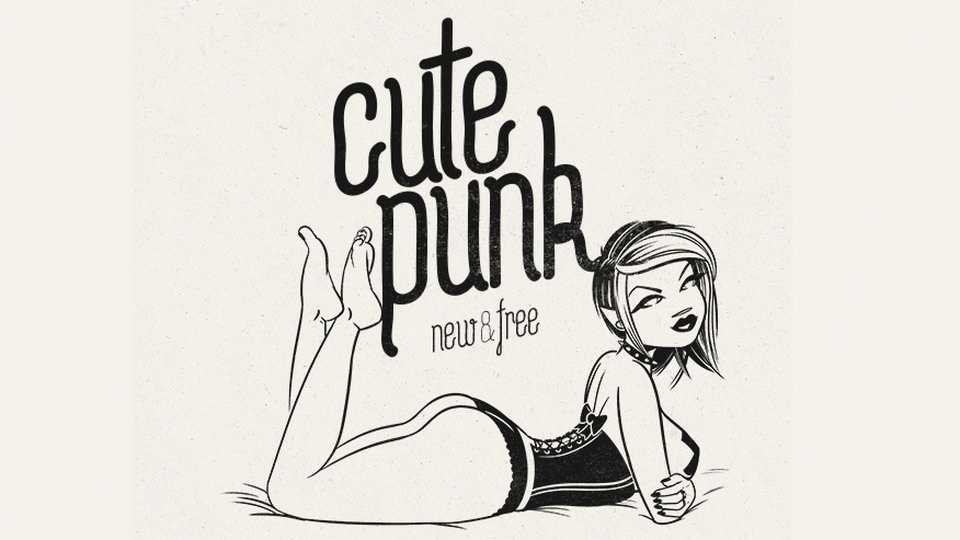
Download Cutepunk font family, a lovely and friendly handwritten typeface with 3 weights. Cutepunk is great for crafts, vintage design, logos, badges, cards printed quotes, social media and more.